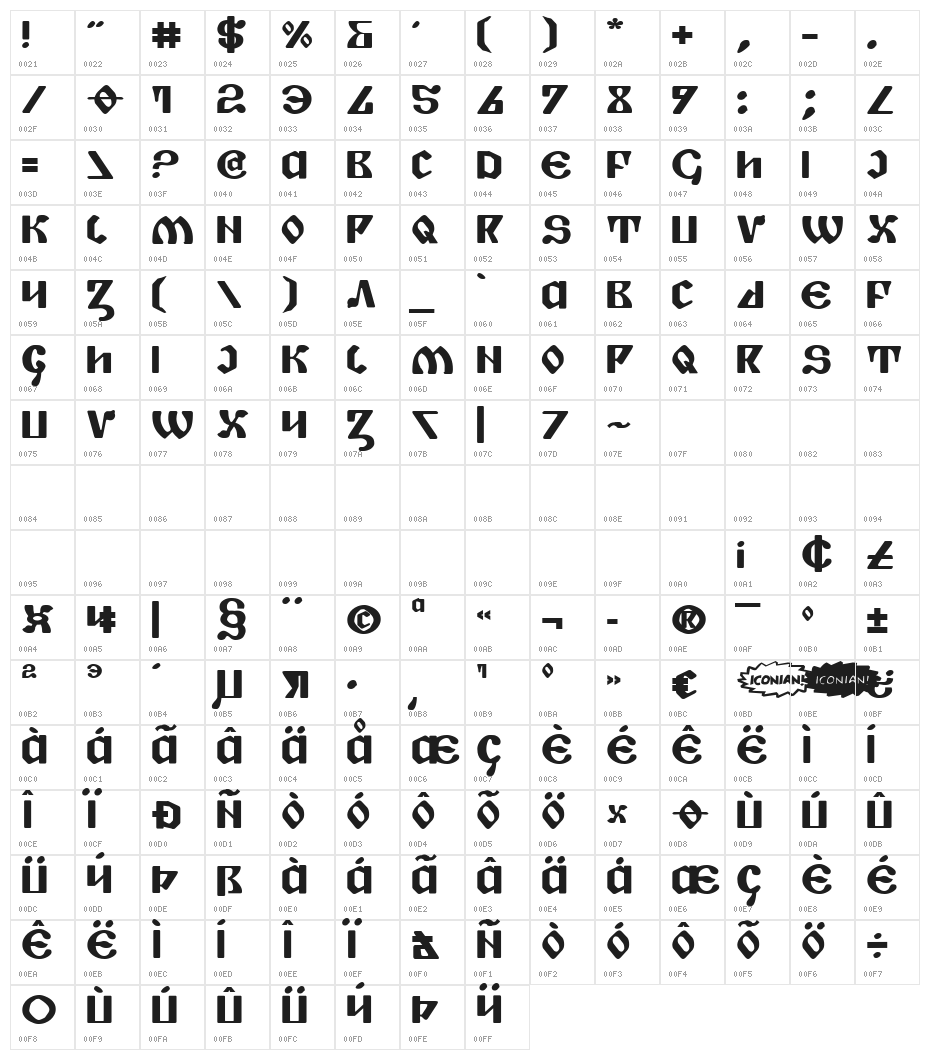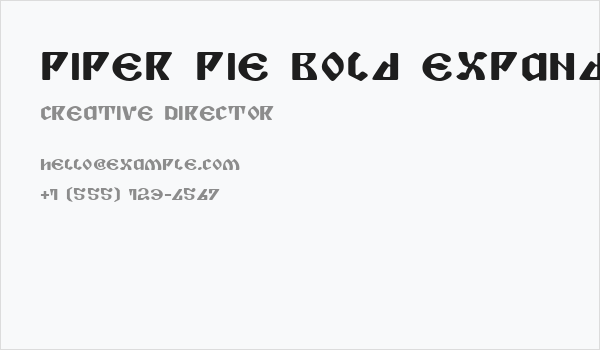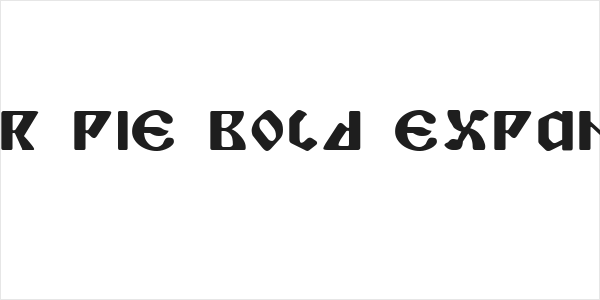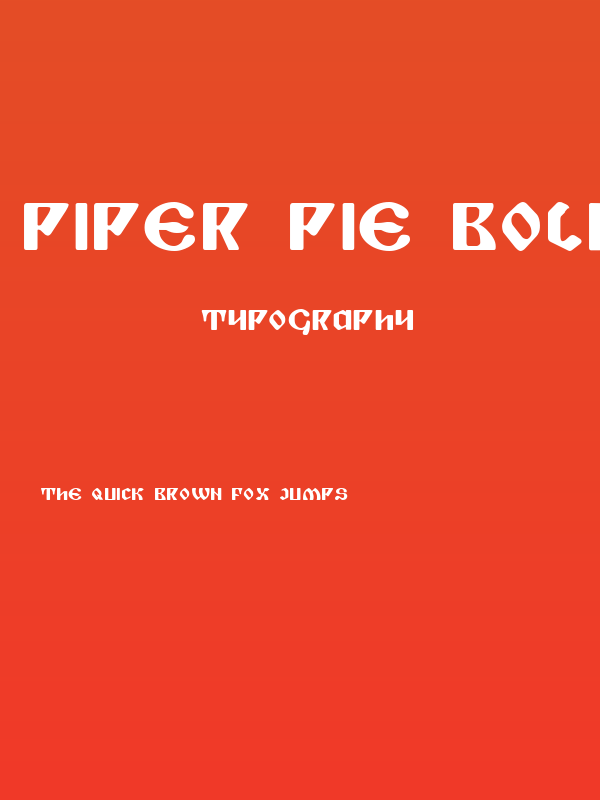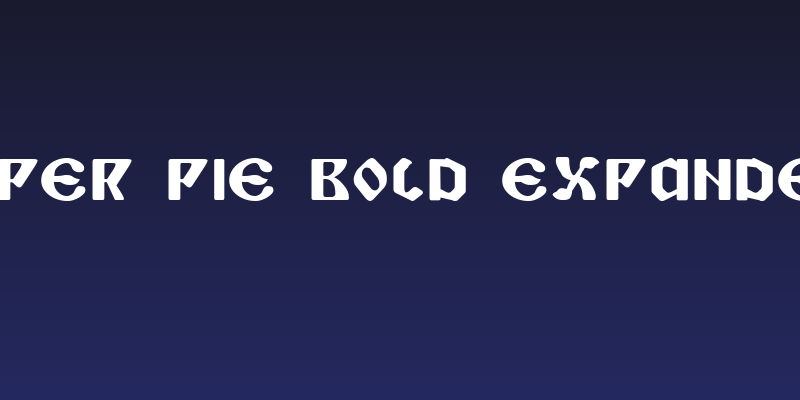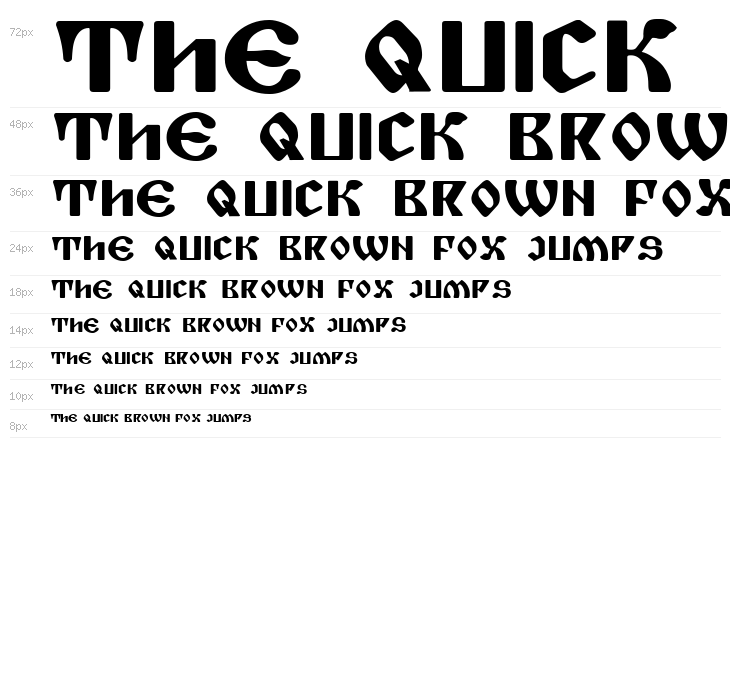
Piper Pie Bold Expanded Font
Piper Pie Bold Expanded Description
This font features a bold and expanded style with a unique geometric flair. The characters are designed with a strong presence, making them ideal for attention-grabbing headlines. The uppercase and lowercase letters maintain a consistent width, contributing to a uniform appearance. The numerals and special characters are crafted to match the boldness of the alphabet, ensuring a cohesive look across all text elements. The font's distinct style is characterized by its thick strokes and expanded width, which add a modern and dynamic feel to any design.
| Proposed Projects | Ideal for branding, poster design, and any project requiring a bold, modern typeface. |